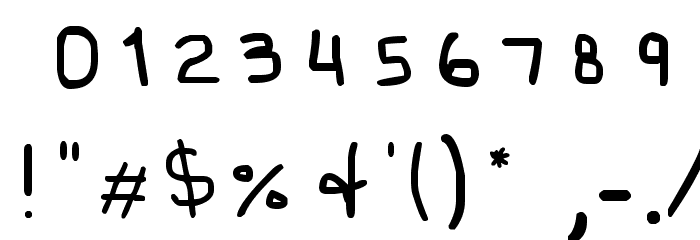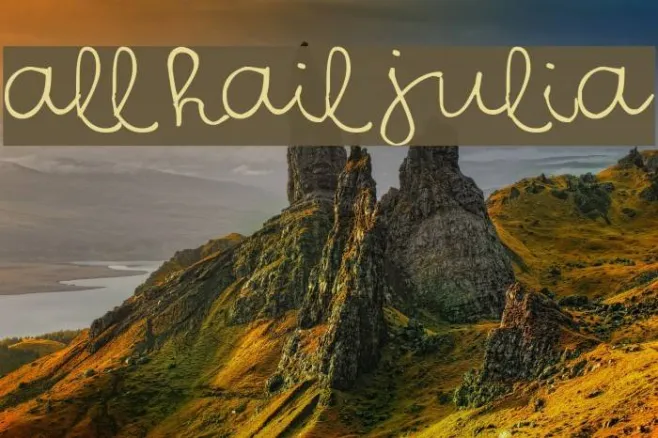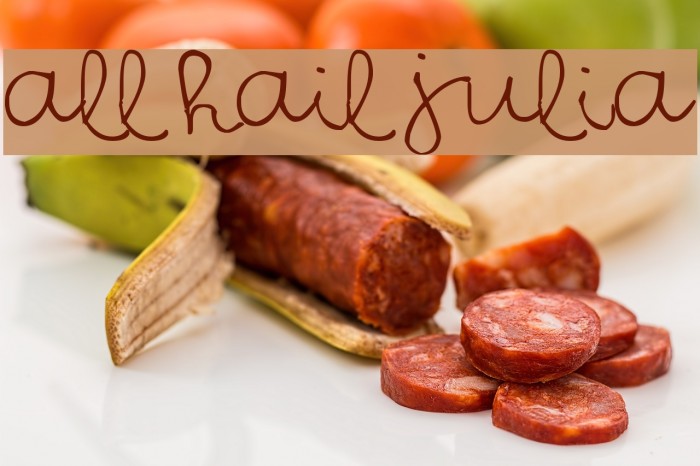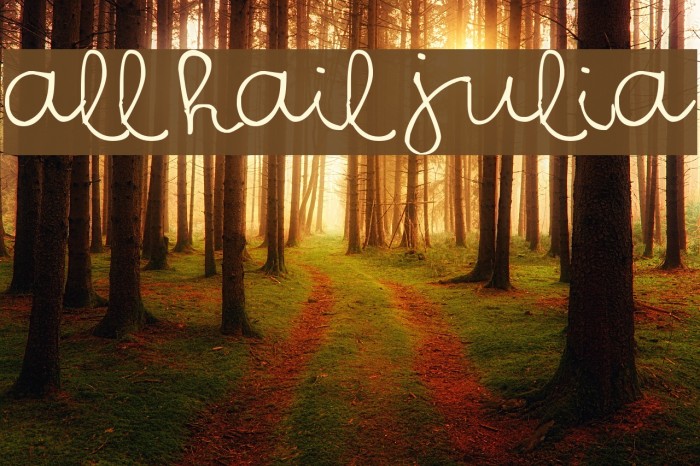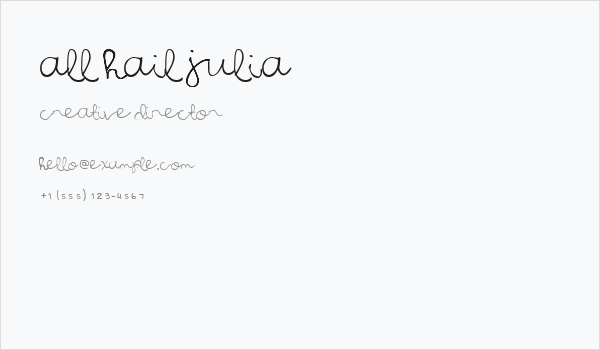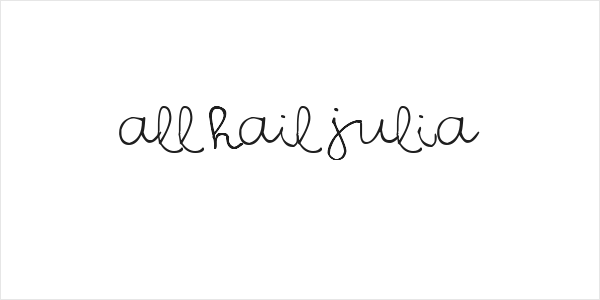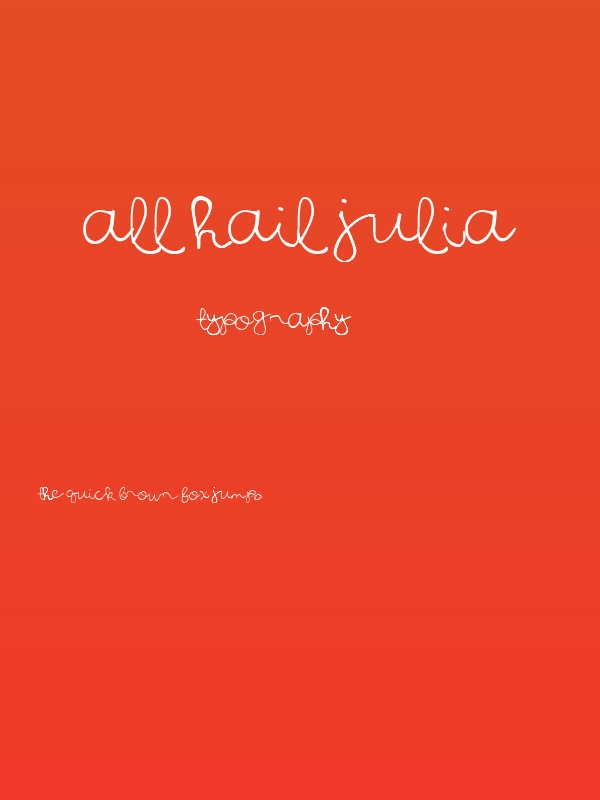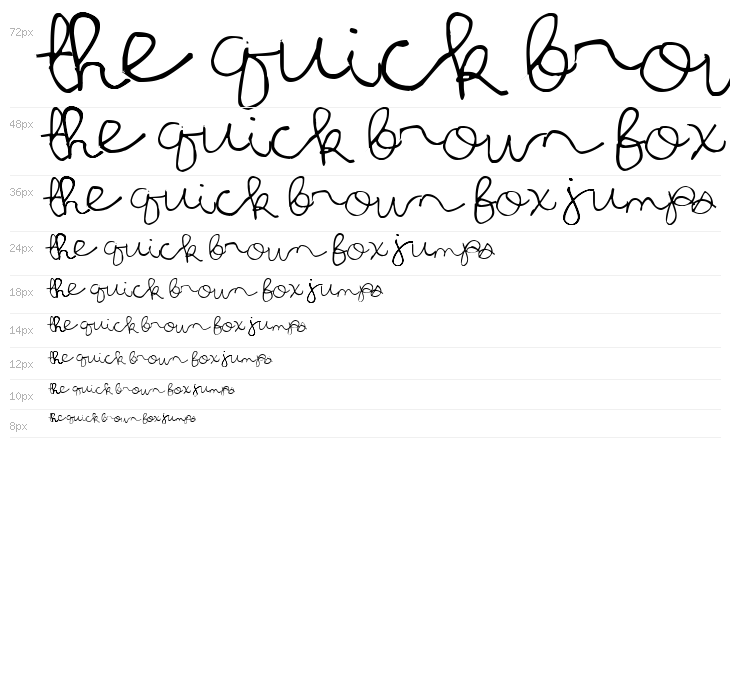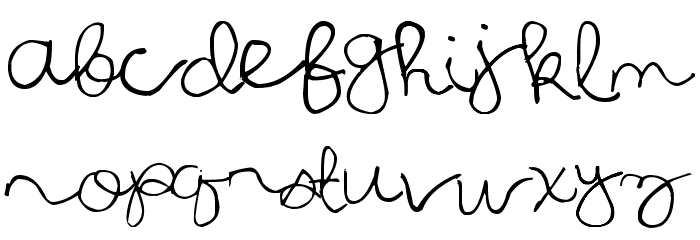
All Hail Julia Font
All Hail Julia Description
This font features a playful and whimsical handwritten style, characterized by its fluid and continuous strokes. The letters are interconnected, giving it a natural and organic flow reminiscent of casual handwriting. The uppercase and lowercase letters maintain a consistent style, with rounded edges and a slight slant that adds to its informal charm. The numbers are clear and legible, following the same handwritten aesthetic. Special characters are creatively integrated, maintaining the overall playful theme. This font exudes a sense of friendliness and approachability, making it ideal for projects that require a personal touch.